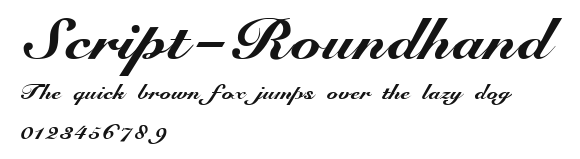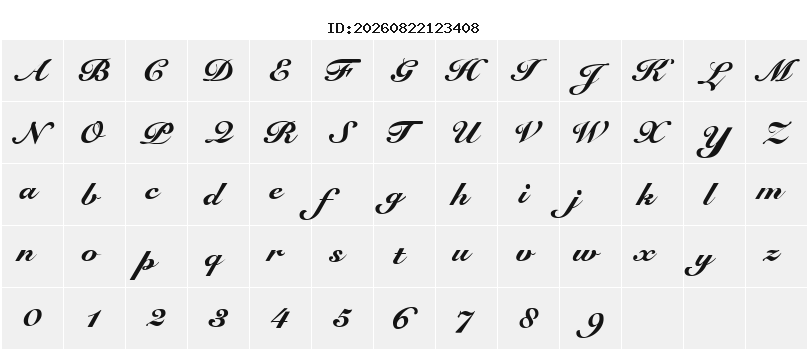
• Font Name: Script-Roundhand
• Font ID: FontMonger:Script Roundhand Normal
• Full Font Name: Script Roundhand Normal
• PostScript Name: ScriptRoundhandNormal
• Character Count: 230
About Script-Roundhand.ttf